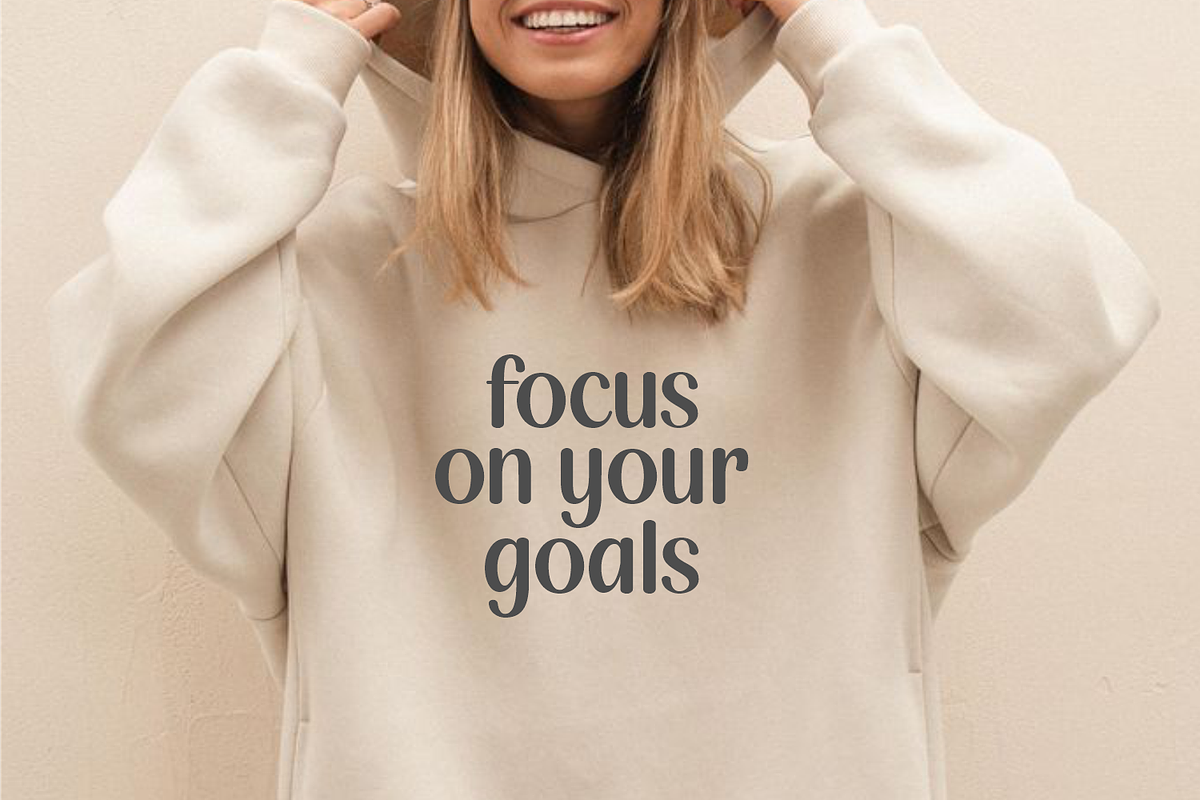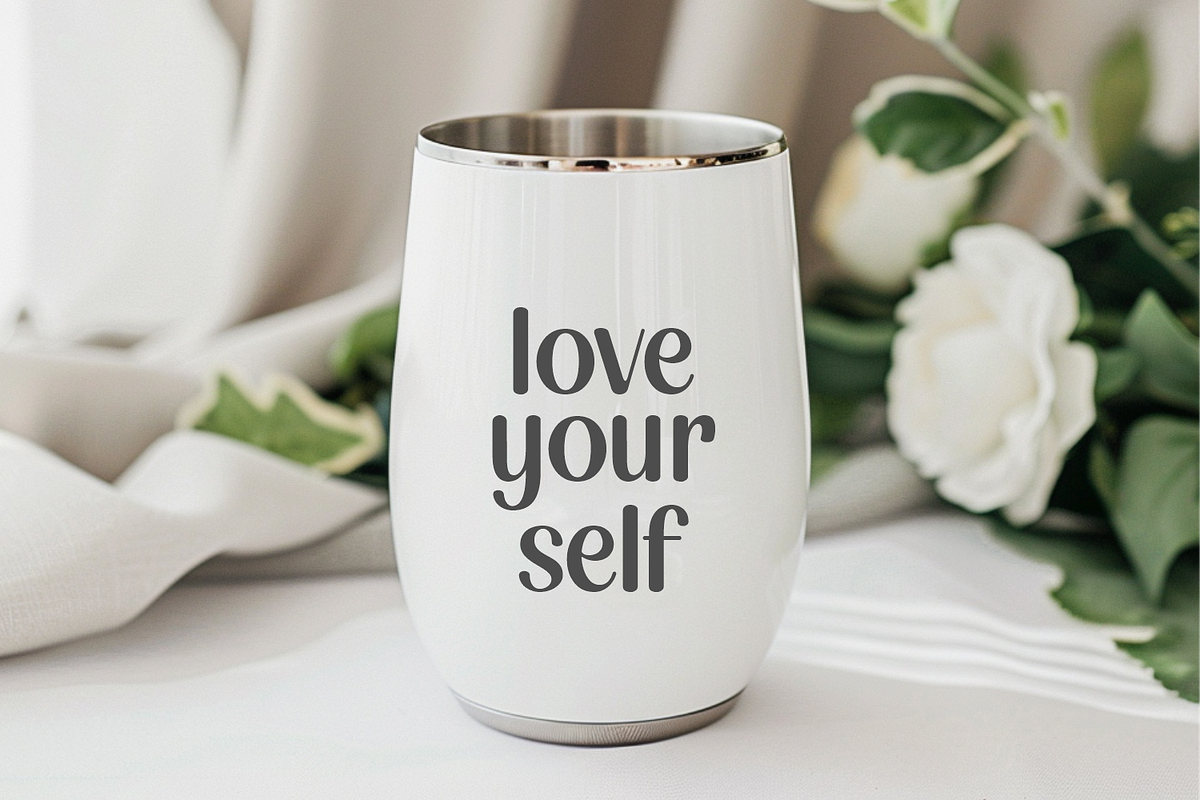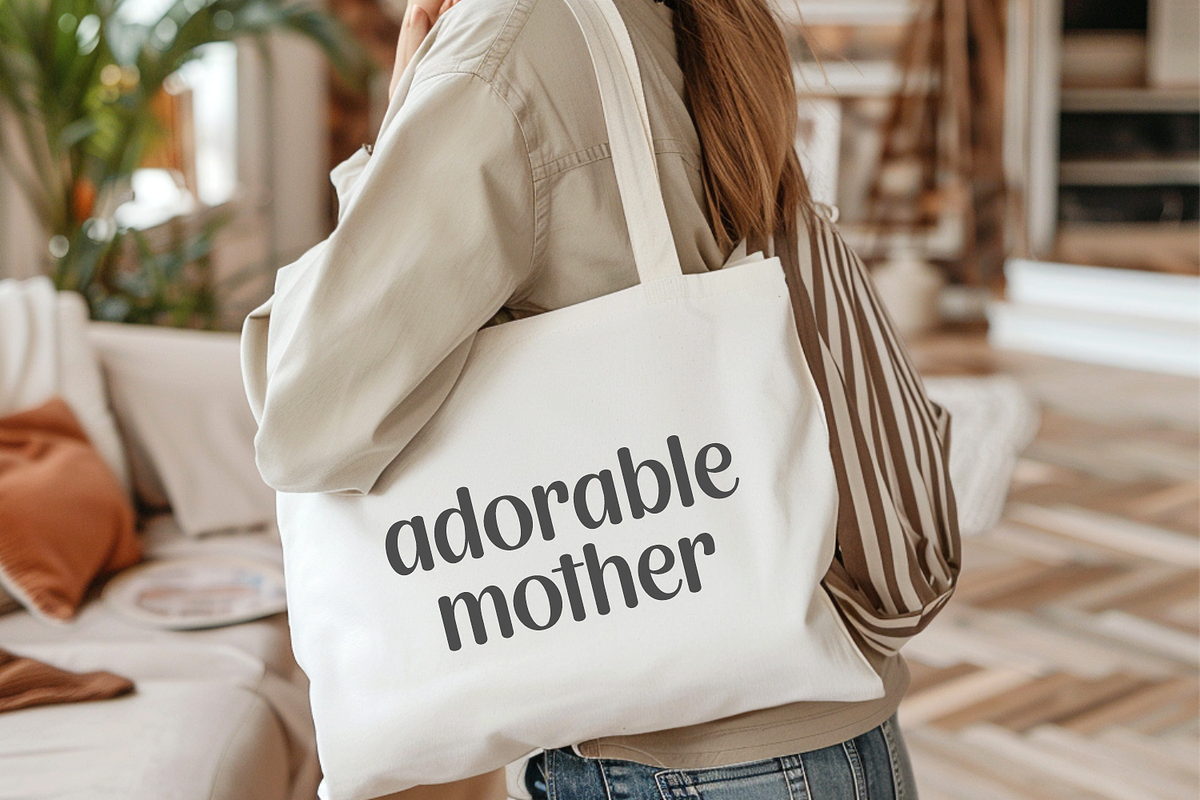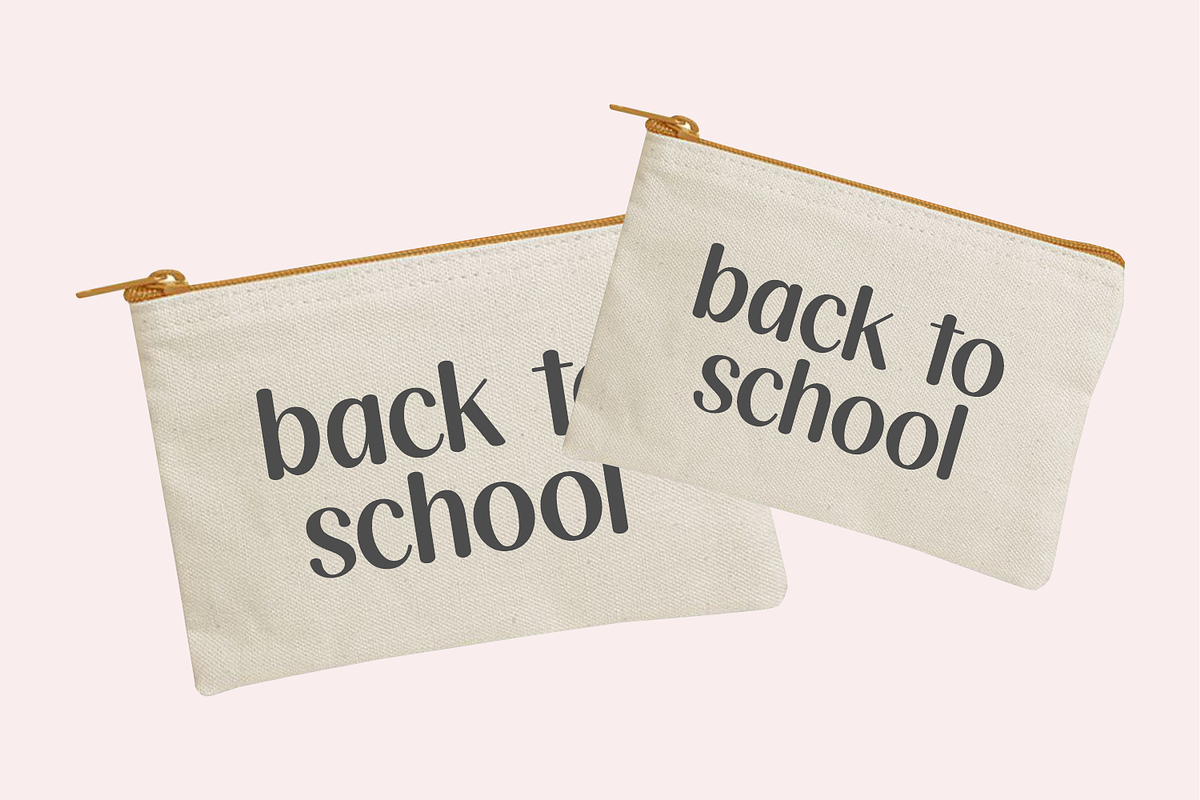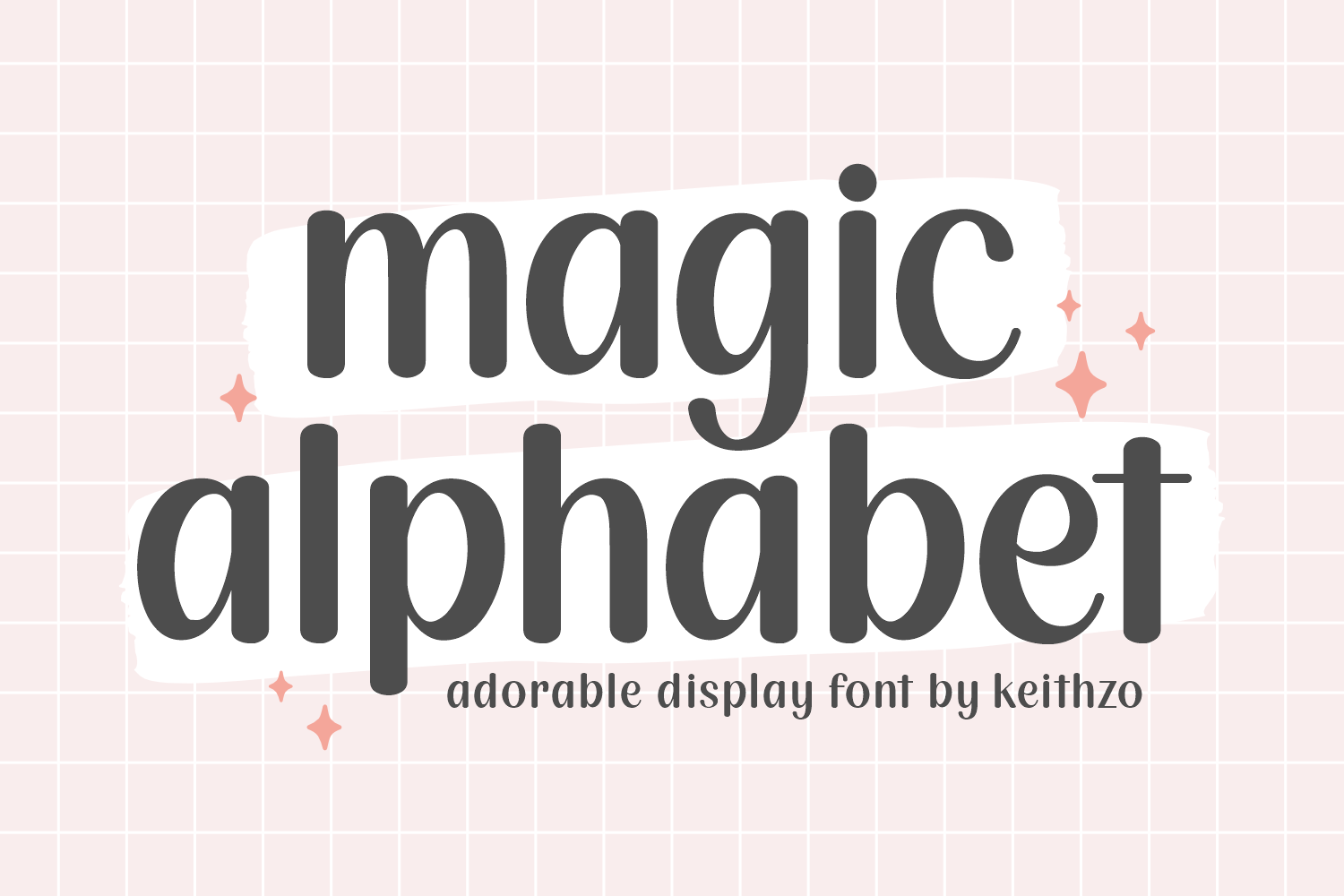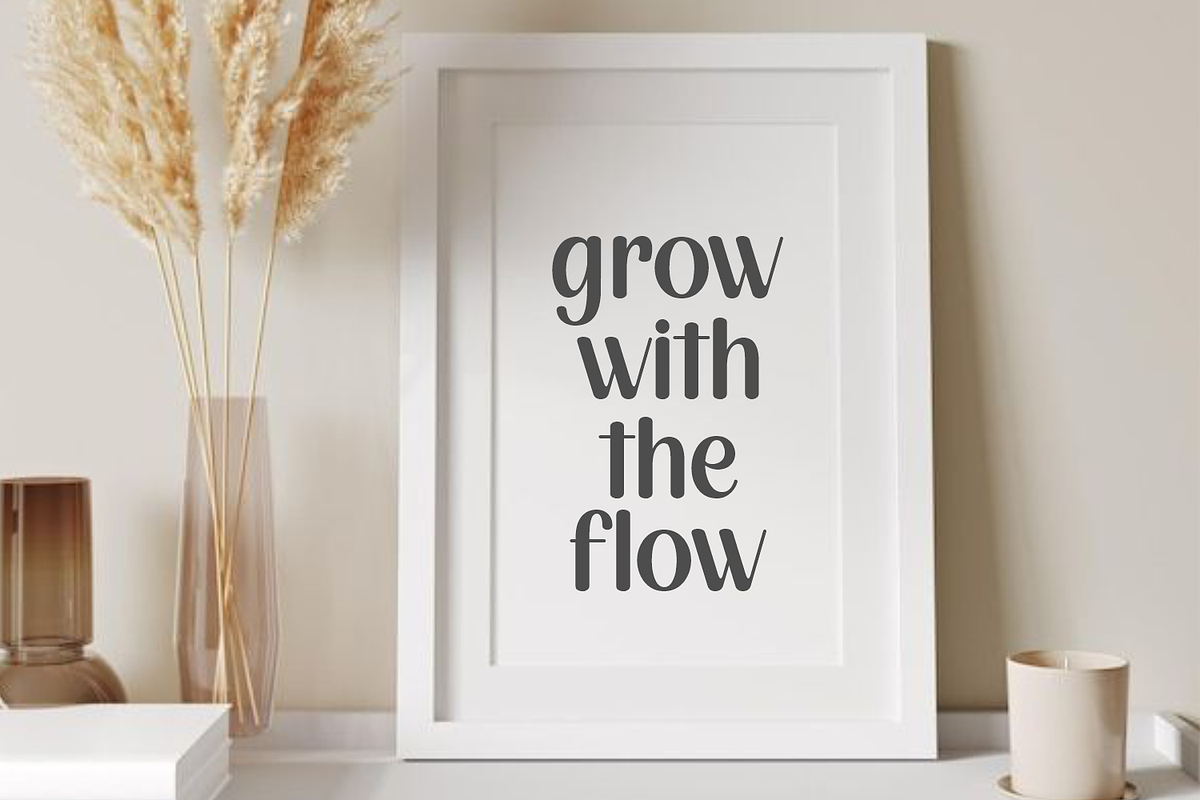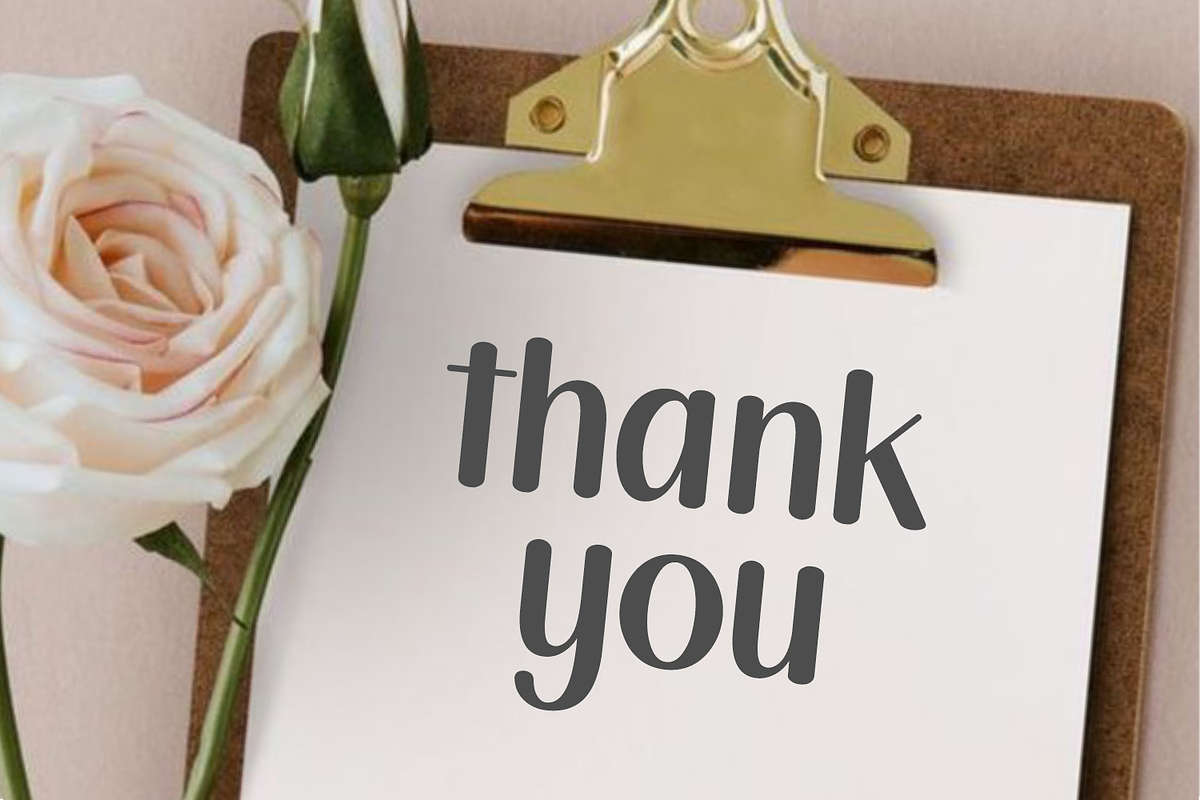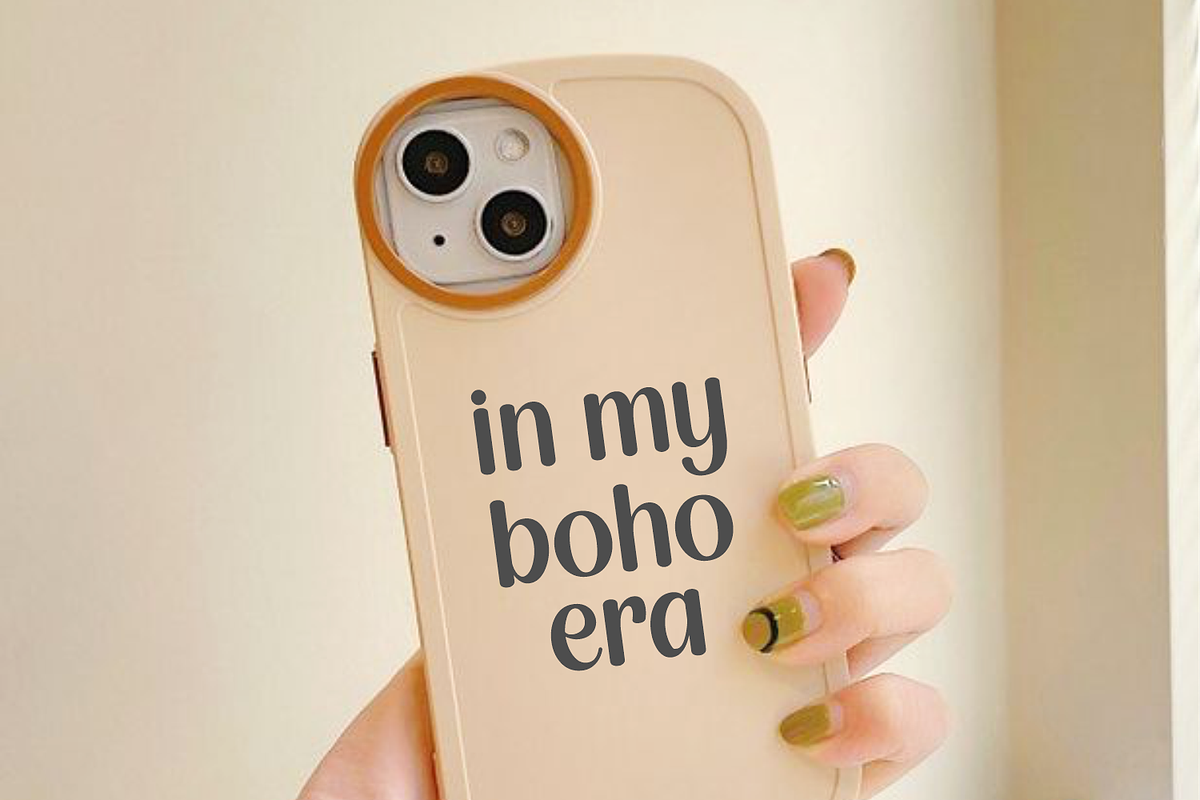
Magic Alphabet - Handwritten Font
Immerse yourself in the delightful charm of Magic Alphabet, a meticulously crafted handwritten font. Each letter, symbol, and space is filled with endearing whimsy and reflects the heart-filled dedication applied to its creation. Magic Alphabet exudes a captivating allure that effortlessly elevates your product’s appeal. It’s a splendid choice for an array of mediums, including tote bags, hoodies, mugs, pouches, and cellphone cases, even figurines. Tailored for artisans, this enchanting font infuses every design project with an added touch of magic, making them all the more enjoyable. The Magic Alphabet carries universal sentiments, ensuring a successful creative journey in every endeavor.